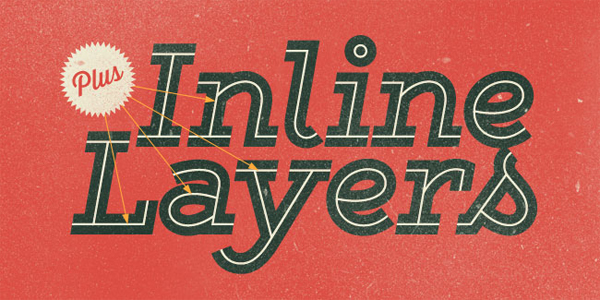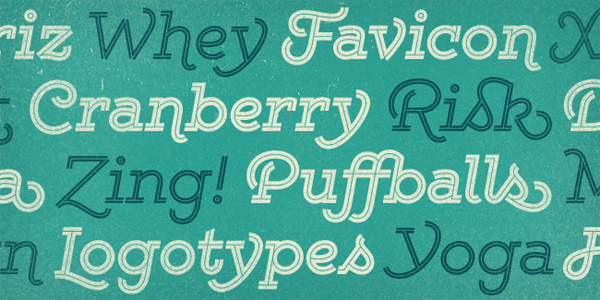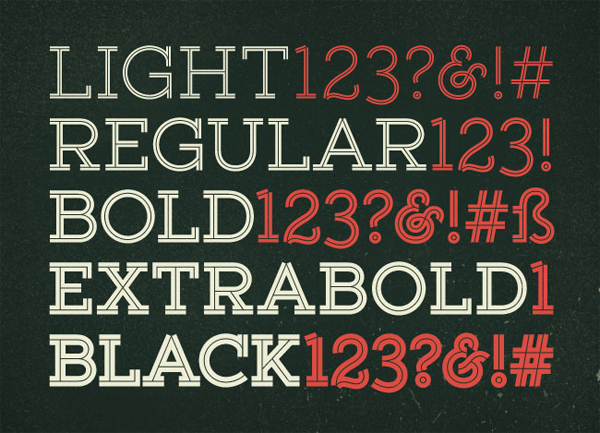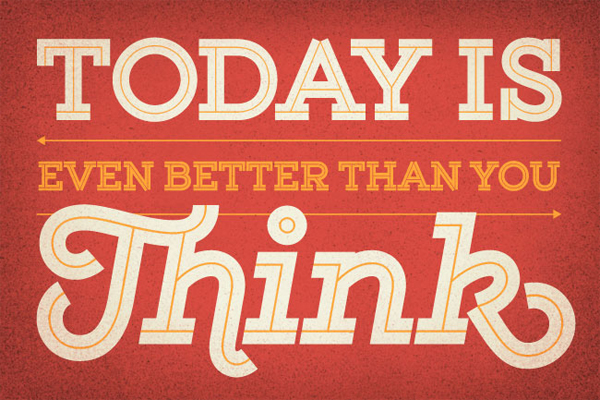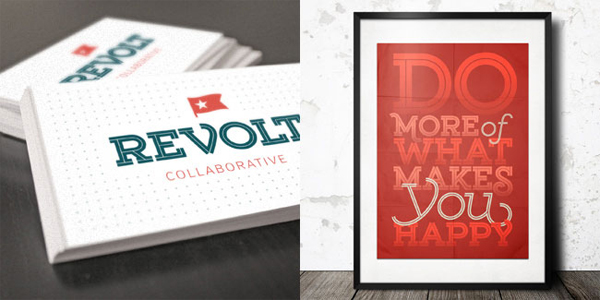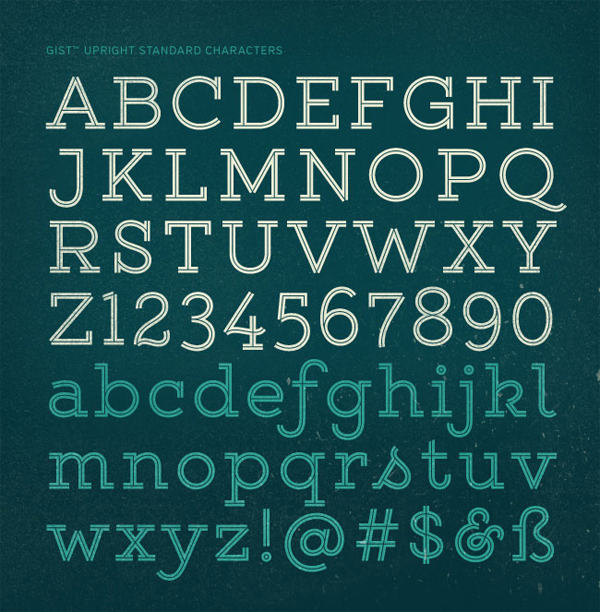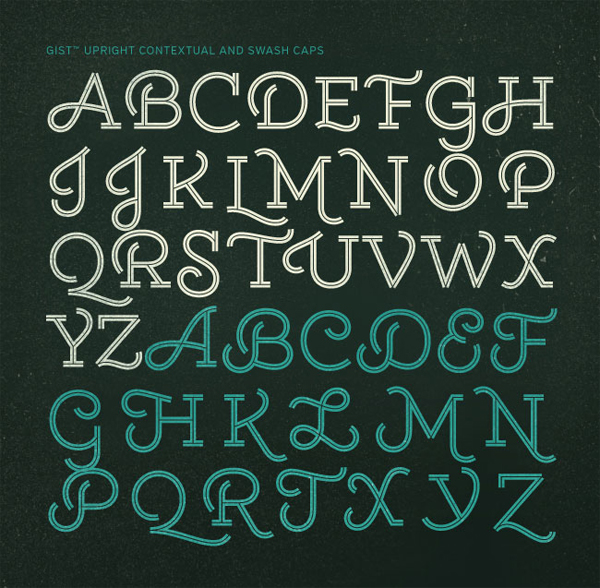
Another masterpiece from Yellow Design Studio, Gist is an inline slab serif font that features a retro yet modern vibe. With 20 weights and loads of OpenType features including ligatures, swashes and alternates, it comes primed with the tools to work on just about any project. But you’ll need to act fast! For a limited time only, you can nab all 20 Gist fonts for just $14!